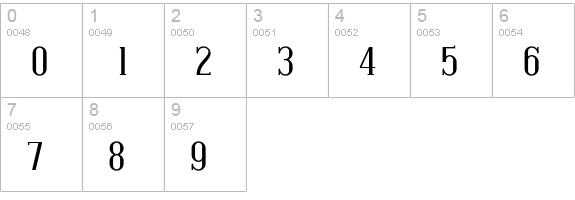
Covington SC font is a timeless and elegant serif typeface that exudes sophistication and class. Its delicate serifs and refined letterforms make it a perfect choice for projects that require a touch of elegance and professionalism. The contrast between thick and thin strokes adds a sense of balance and harmony to the overall design. This exquisite font is versatile and can be used for a wide range of design projects, from invitations and wedding stationery to branding and logos. Its classic look and timeless appeal make it a popular choice among designers and creatives looking to add a touch of sophistication to their work. Best of all, Covington SC font is available for free download at FontsMarket.com. Now you can access this stunning typeface without any cost, making it the perfect choice for budget-conscious designers looking to elevate their projects with a touch of luxury. Download Covington SC font today and add a touch of elegance to your designs.